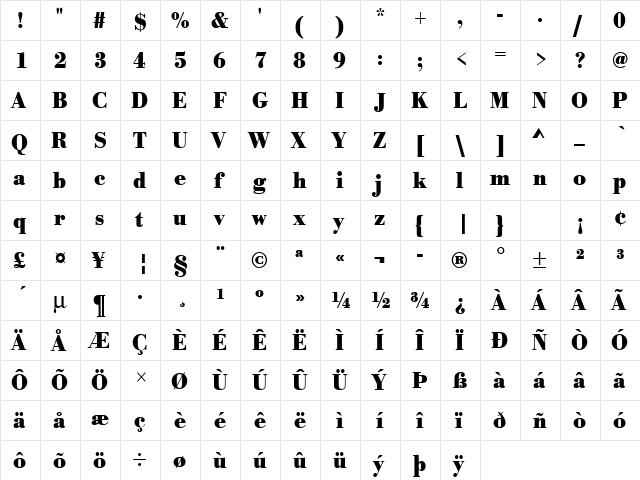
URWBodoniTExtNar Bold
Design Context for URWBodoniTExtNar Typeface
URWBodoniTExtNar offers clean, dependable letterforms without strong stylistic allegiance, making it a practical choice for designers who need flexibility. Its bold stroke weight gives it real presence on the page.